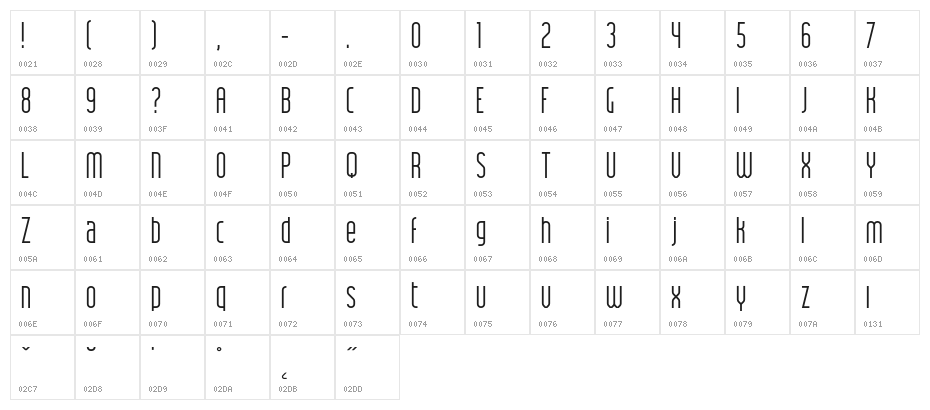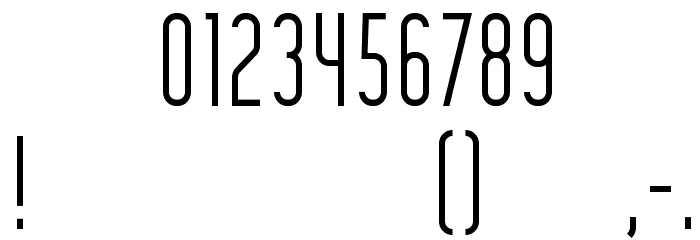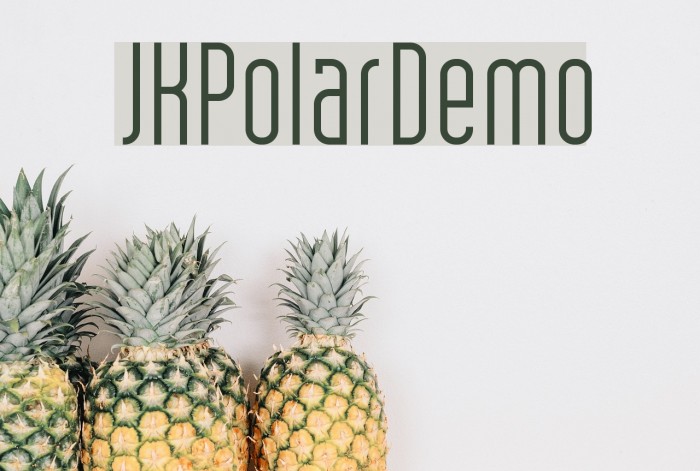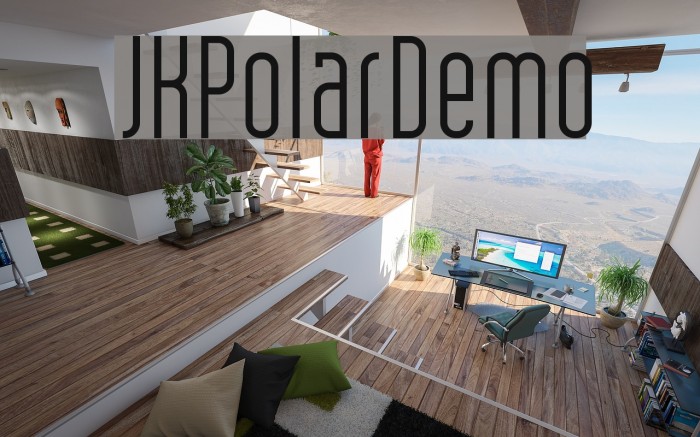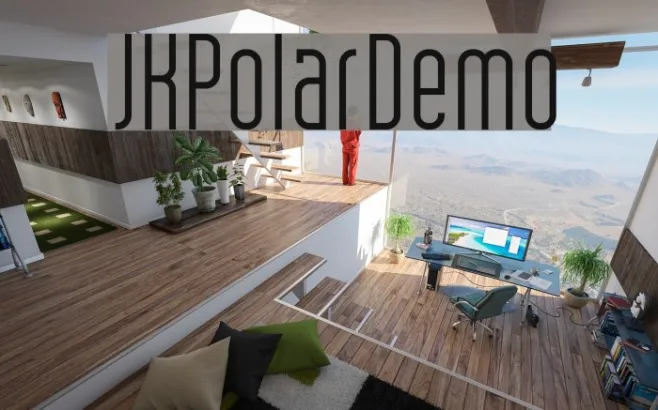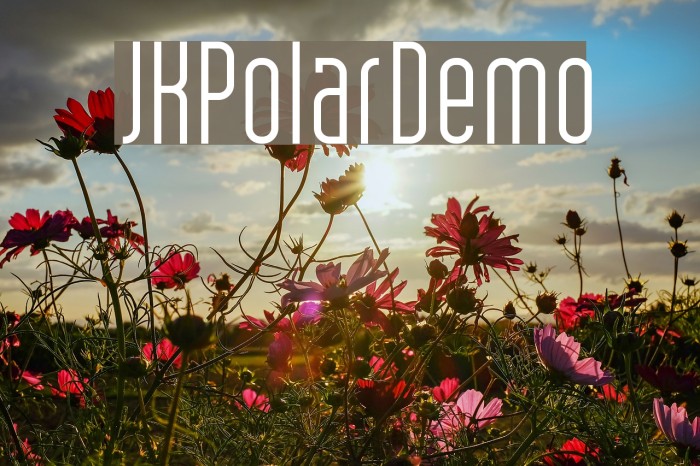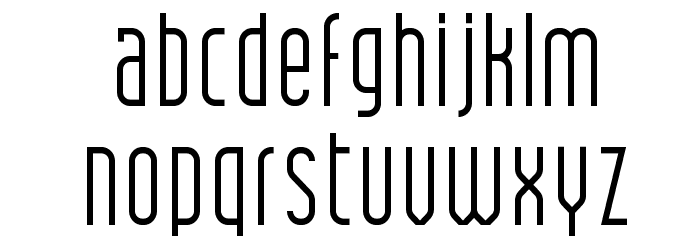
JKPolarDemo Font
JKPolarDemo Description
This font features a modern and sleek design with tall, narrow characters that convey a sense of elegance and sophistication. The uppercase letters are uniform in height, with a consistent stroke width that gives a clean and minimalist appearance. The lowercase letters maintain the same narrow structure, enhancing readability while preserving the font's unique style. Numbers are similarly designed, offering a cohesive look across all characters. The special characters, including punctuation marks, are crafted to match the overall aesthetic, ensuring visual harmony. This font's geometric and streamlined form makes it suitable for contemporary design projects.
| Use Case | Headlines, Logos, Digital Interfaces |
| Proposed Projects | Ideal for branding, editorial design, packaging, and digital interfaces where a modern and sophisticated look is desired. |